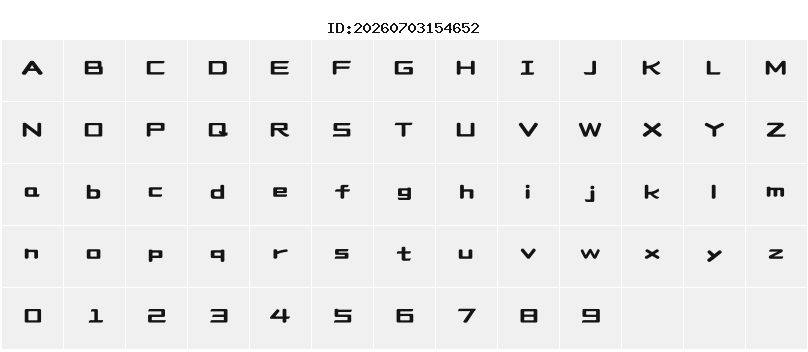
359-上首墨规体 Preview
About 359-上首墨规体.ttf
359-上首墨规体.ttf is a modern, elegant sans-serif font designed for ultimate readability and visual harmony. Perfect for branding, headlines, web design, and print materials.